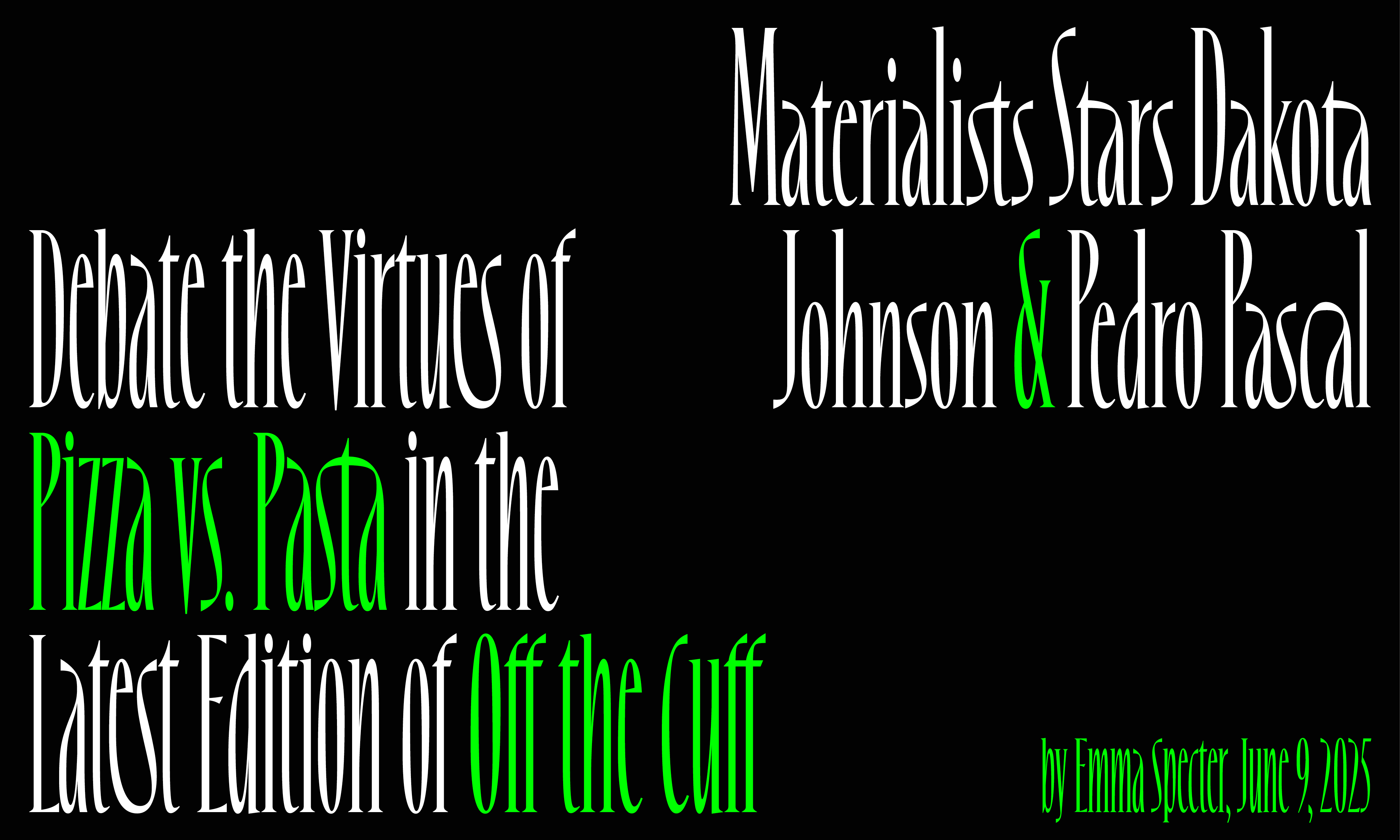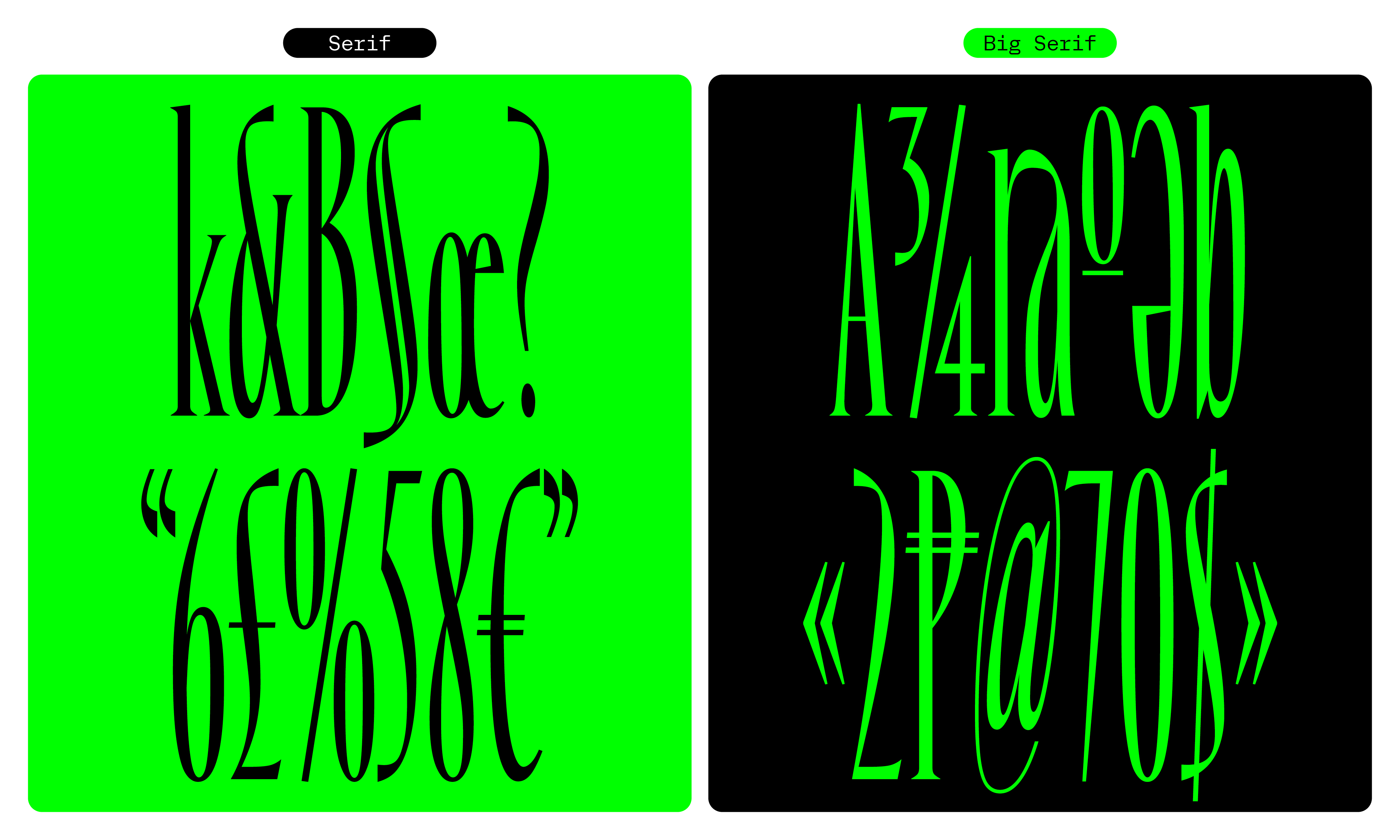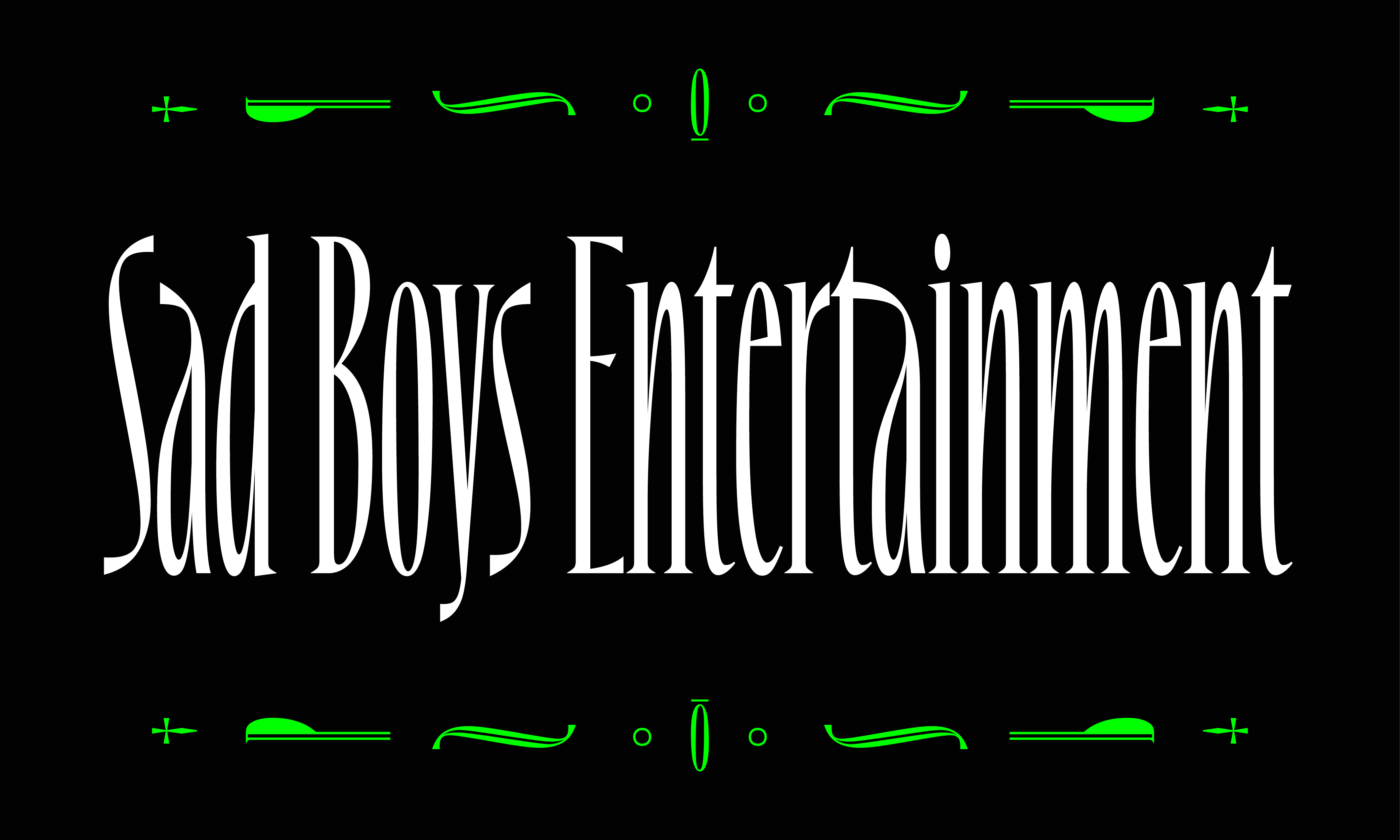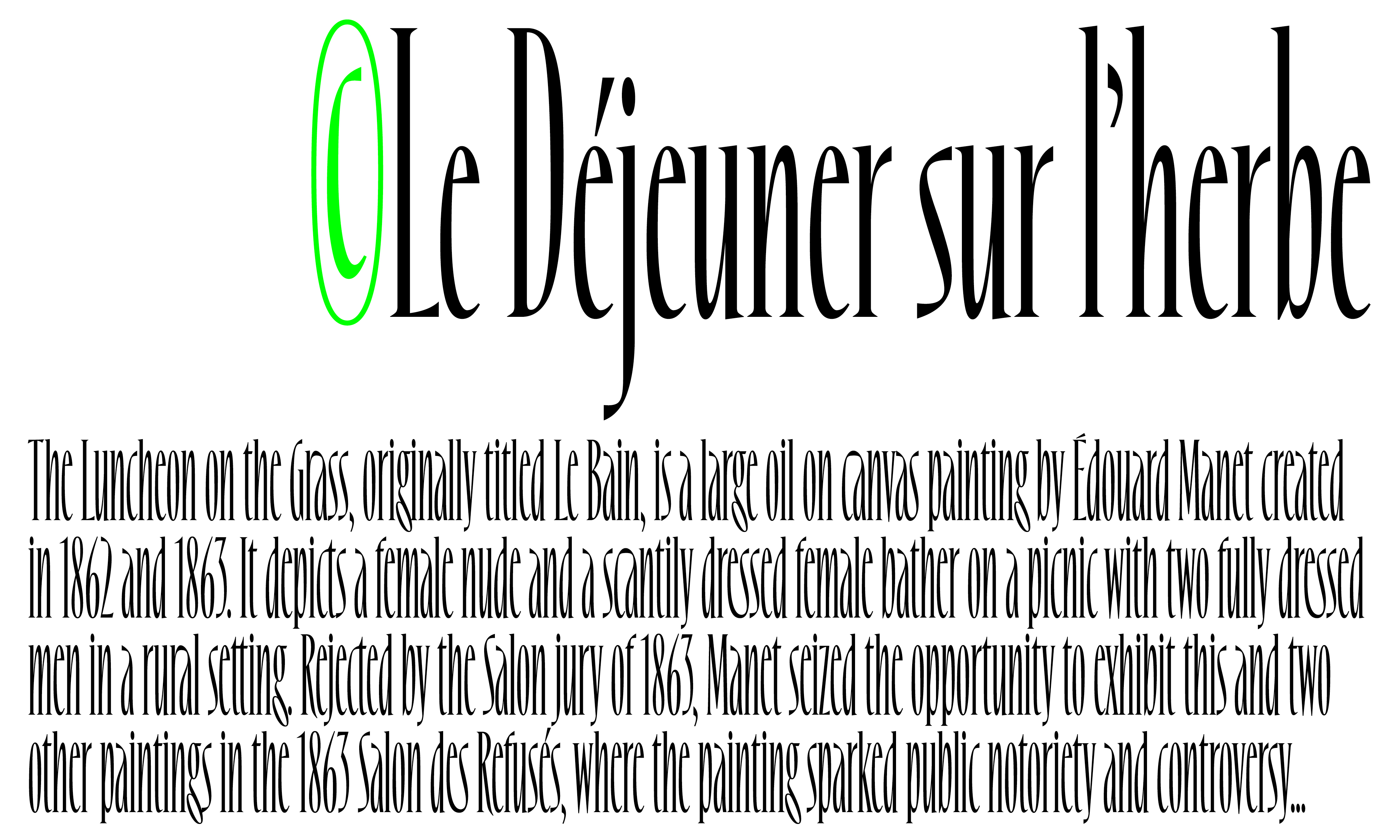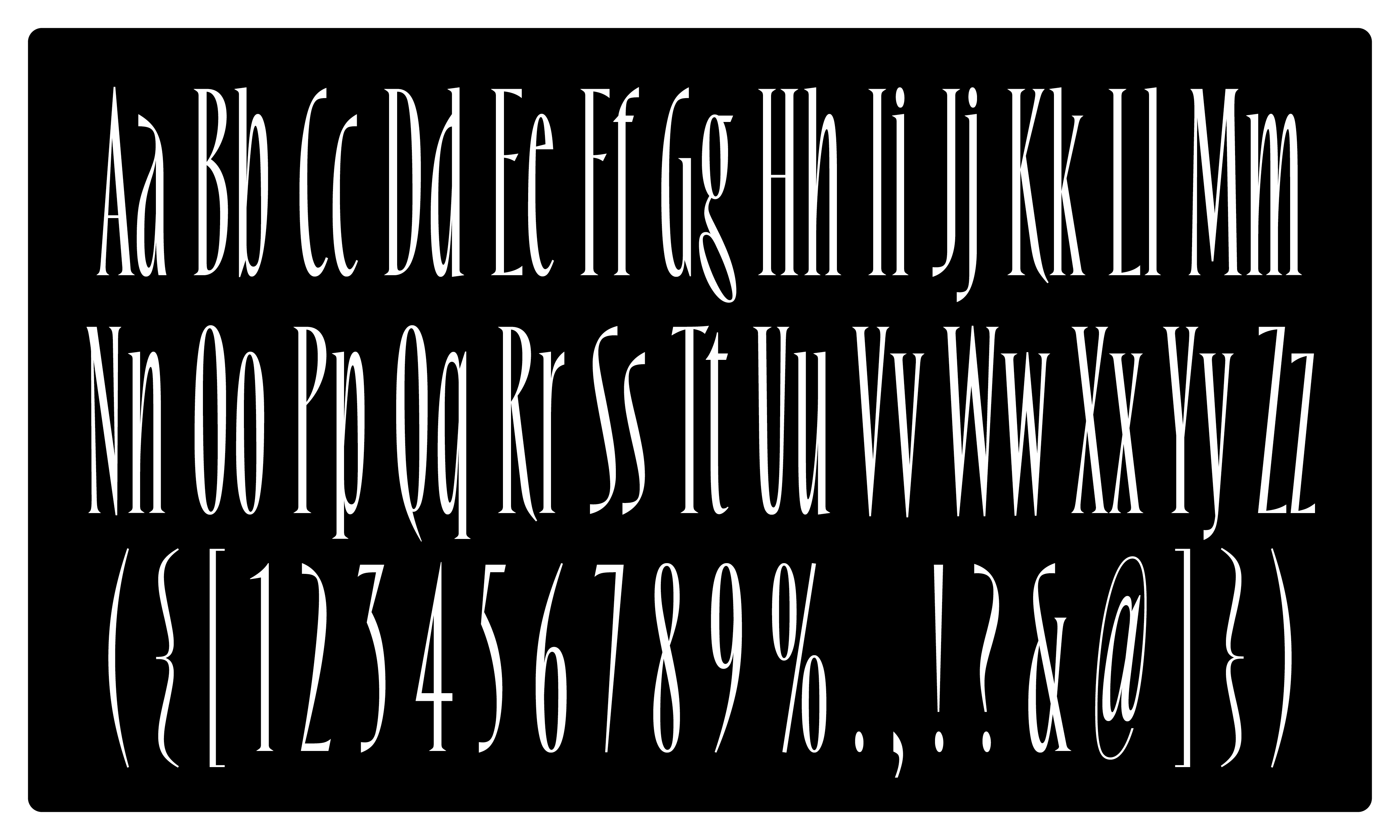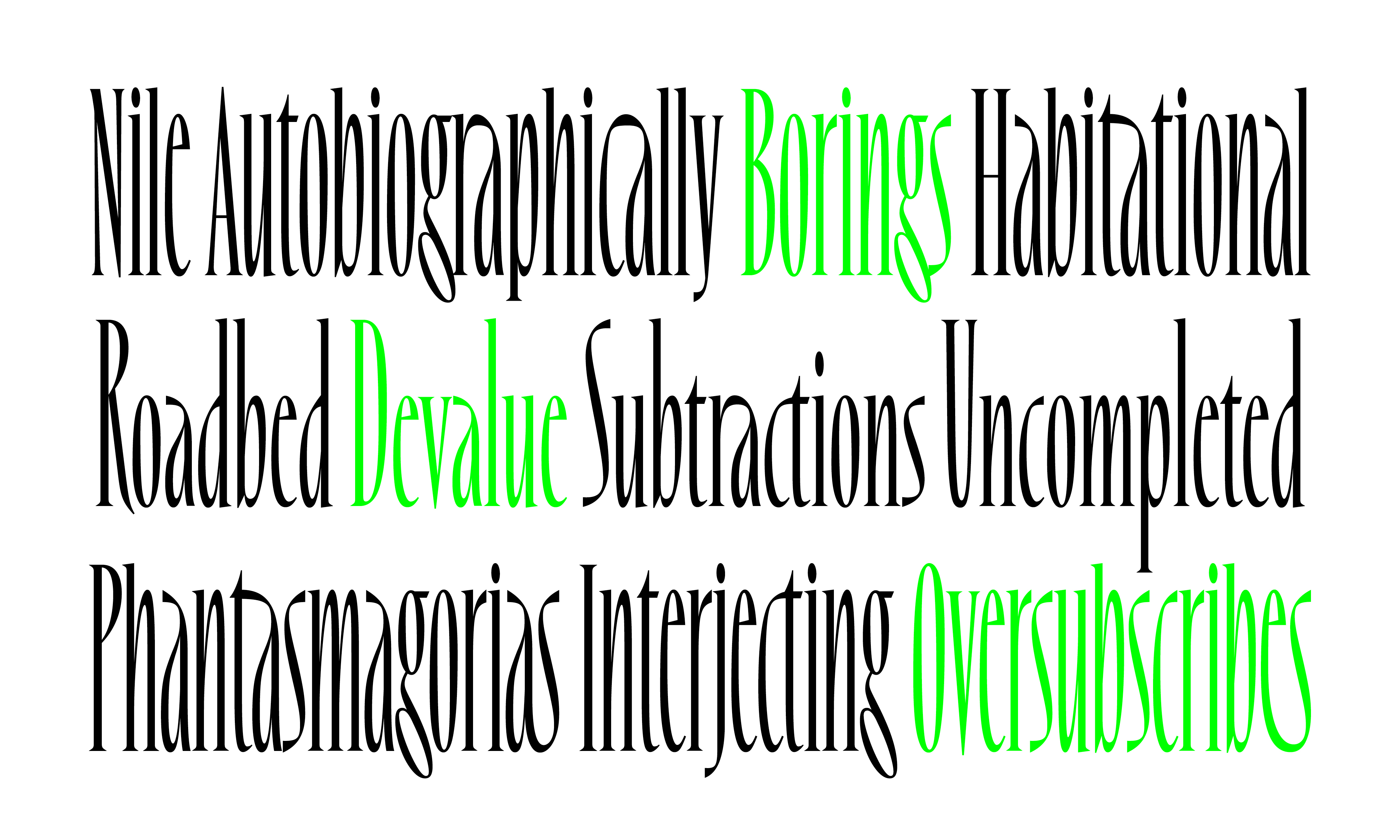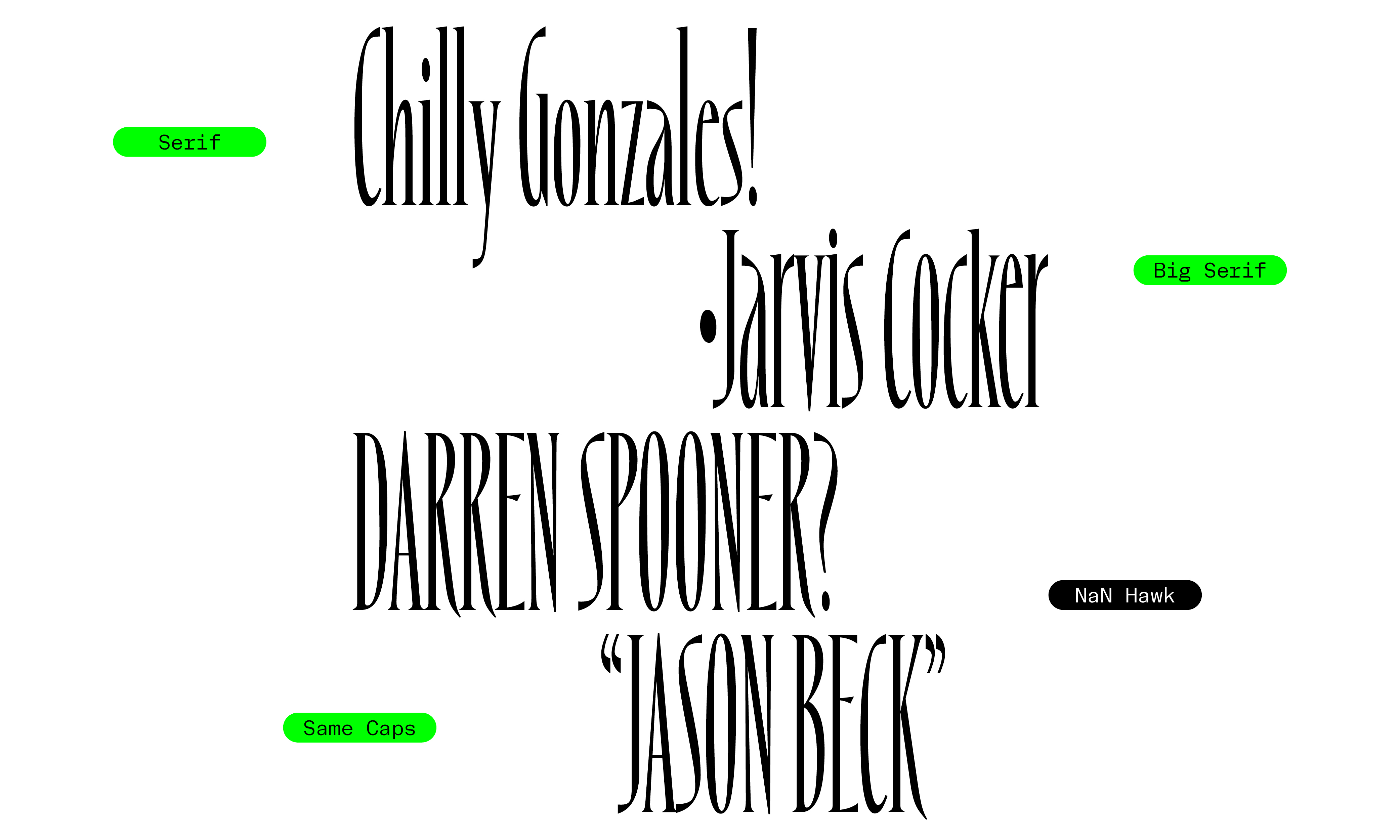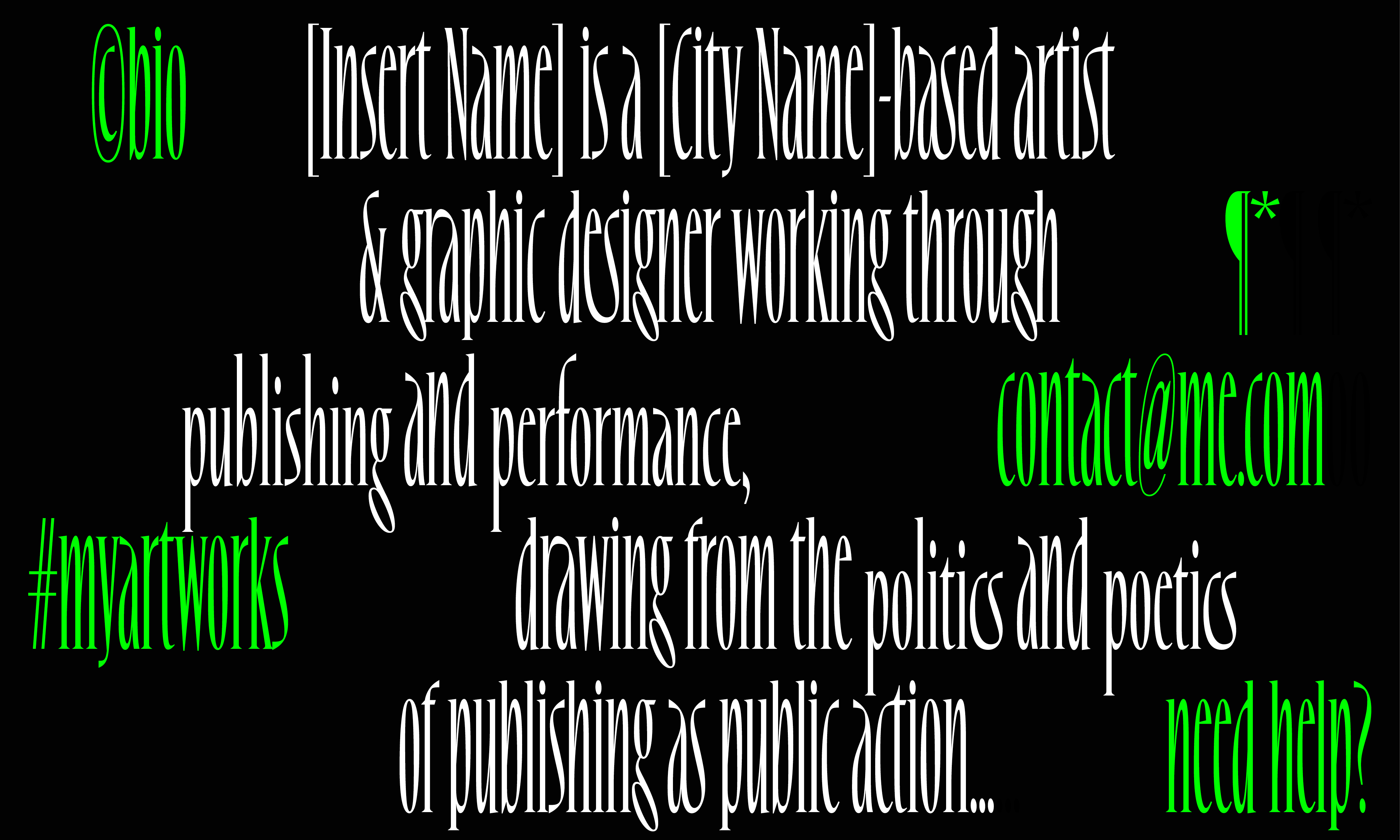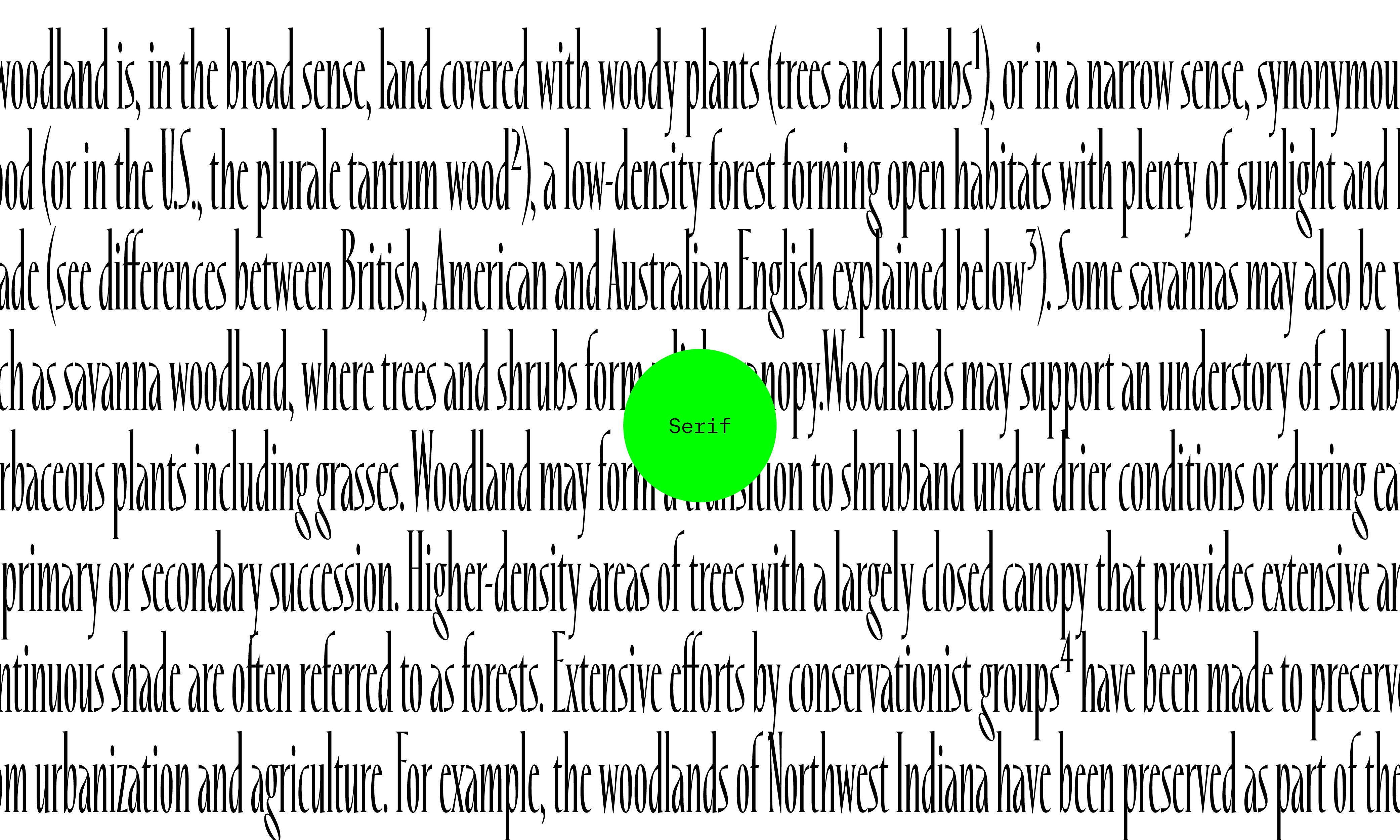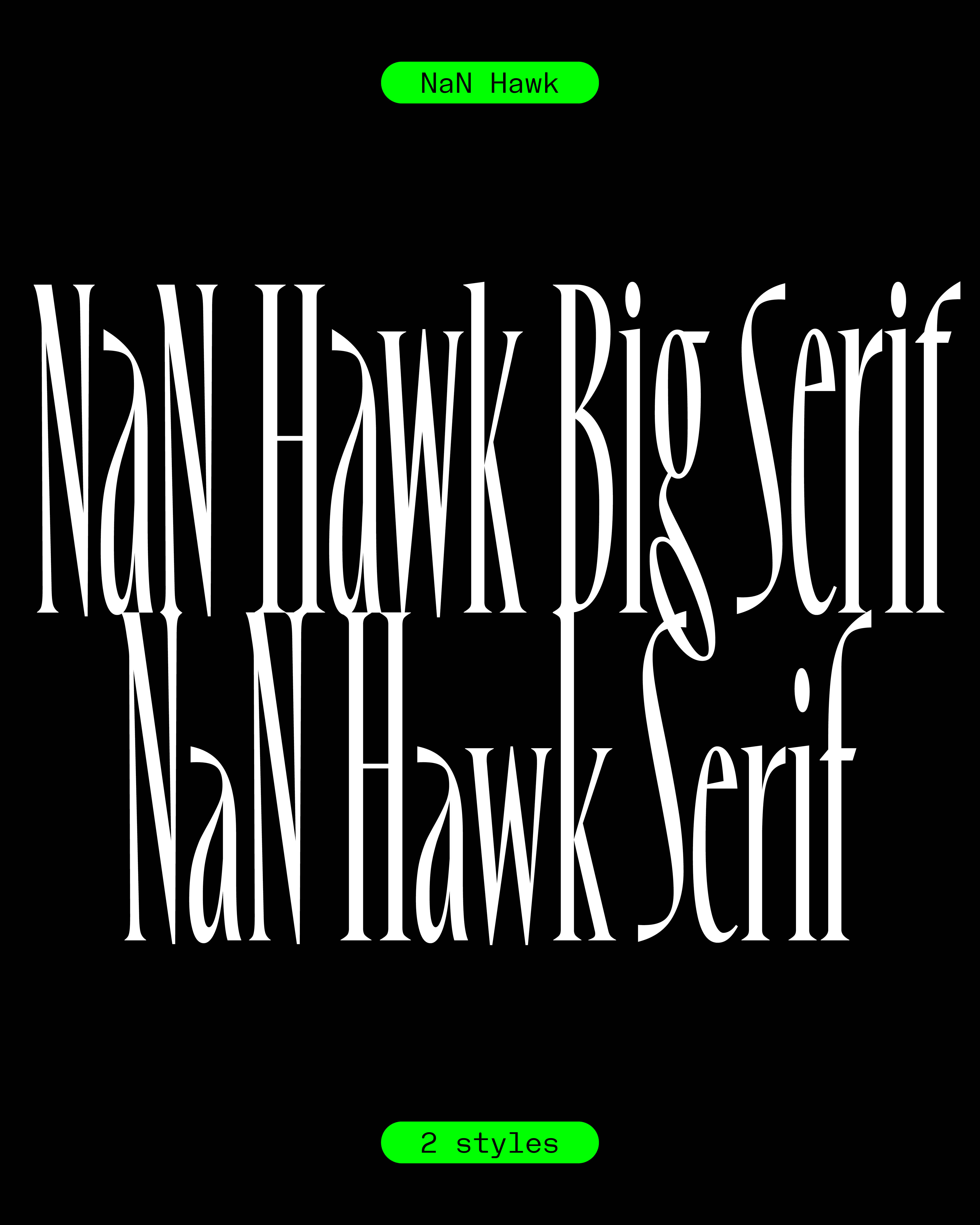
NaN Hawk family
by NaN
NaN Hawk
NaN Hawk, extreme in most ways. Its contrast, x-height, audacity. Beware, sharp corners.
NaN Hawk OpenType Features
- Fractions (on) (off) 13/57
- Ordinals (on) (off) 1o 2a
- Proportional Figures (on) (off) 0123456789
- Scientific Inferiors (on) (off) 0123456789
- Subscript (on) (off) abc123
- Superscript (on) (off) abc123
- Tabular Figures (on) (off) 0123456789